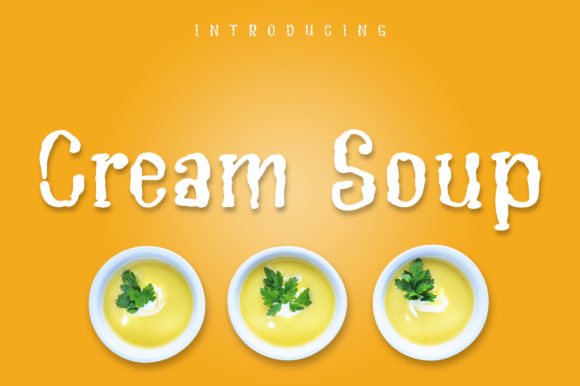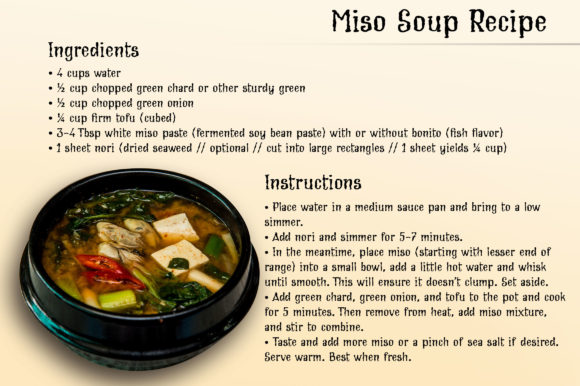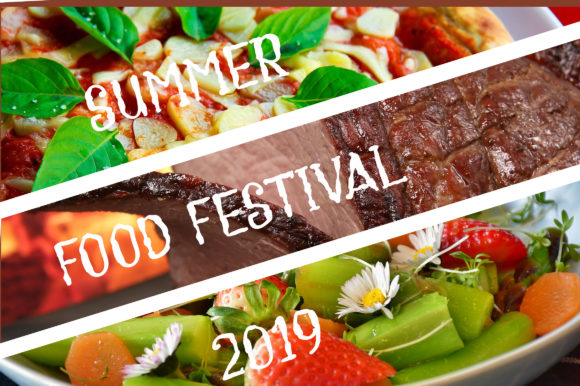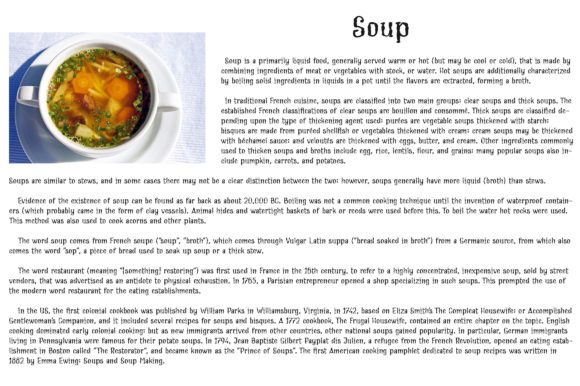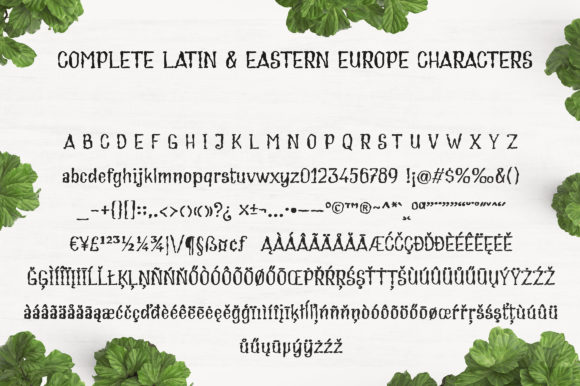
Cream Soup Font
About Cream Soup Font
The Cream Soup is a cool script font. It has a good composition and kerning and can be used for logos, titles, t-shirts, mugs, flyers, books, magazines, and much more!